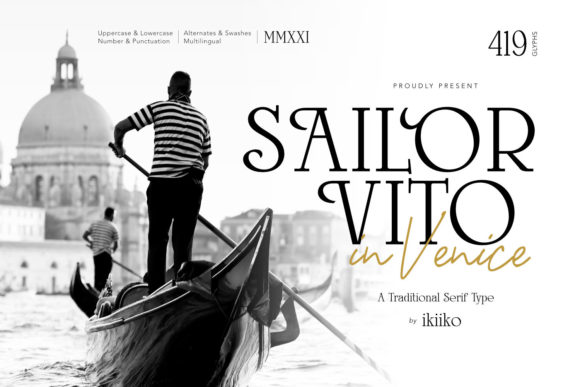
Step into the world of elegance and vintage charm with Sailor Vito, a captivating serif font duo that will transform your creative projects into timeless masterpieces. Inspired by the Victorian era, this font family exudes a sense of sophistication and nostalgia that will leave a lasting impression on your audience.
Crafted with meticulous attention to detail, Sailor Vito boasts a simple yet impactful form, enhanced by strong serif hooks that add a touch of intrigue and personality. This font duo seamlessly blends the classic serif style with a modern twist, making it a versatile choice for a wide range of design projects.
Whether you're a graphic designer, a blogger, or a creative entrepreneur, Sailor Vito is the perfect font to add a touch of timeless elegance to your designs. Its versatility shines through in logos, branding, invitations, quotes, and more. Imagine your words dancing across the page, evoking a sense of nostalgia and sophistication that will captivate your readers.
With its PUA encoding, Sailor Vito ensures effortless access to all of its glyphs and swashes, making it easy to incorporate stunning details and flourishes into your designs. Unleash your creativity and let the beauty of Sailor Vito elevate your projects to new heights.
Immerse yourself in the world of Sailor Vito and experience the joy of creating designs that stand the test of time. Its timeless appeal and versatility make it the perfect choice for those seeking a font that exudes both elegance and charm. Embark on a creative journey with Sailor Vito today.